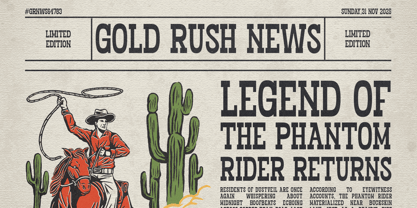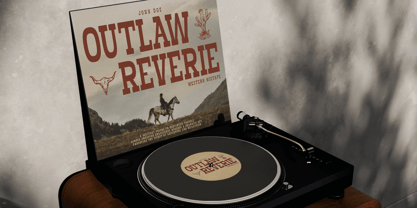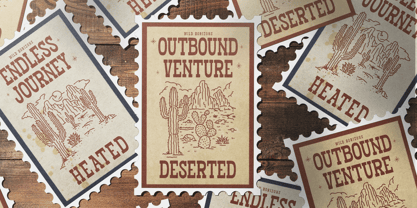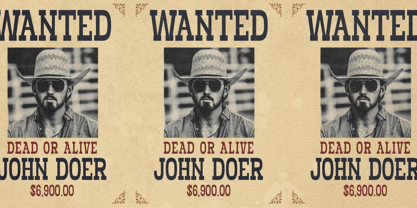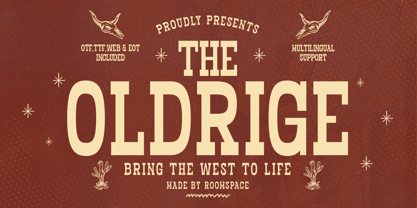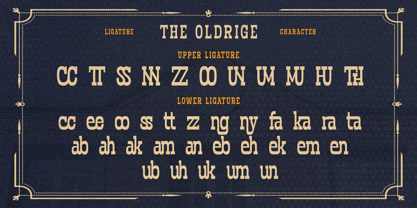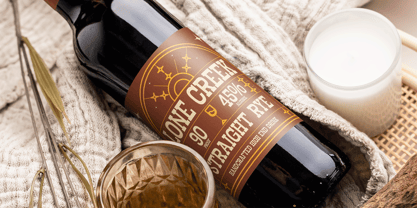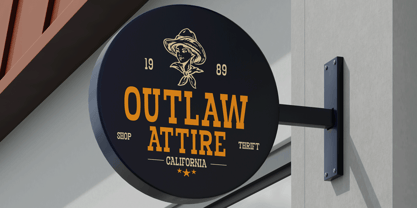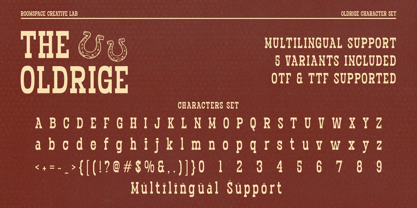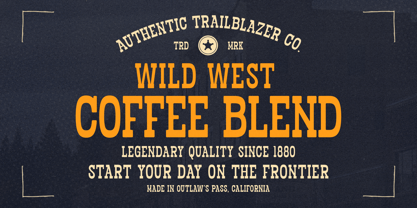
Oldrige
The Oldrige Font Family was designed by Bakhrudin Ja'far and published by Jafar07. Oldrige contains 6 styles and family package options. More about this family
Bring the West to life with rugged typography crafted for standout branding. The design features bold slab-serif lettering in a warm cream tone set against a textured reddish-brown background, capturing the rugged feel of classic frontier typography. Decorative elements such as hand-drawn stars, steer skull illustrations, and subtle grain textures enhance the authentic Old West aesthetic. The tagline “Bring the West to Life” reinforces the font’s purpose for Western branding, retro packaging, rustic posters, and heritage-inspired design projects. Overall, the visual communicates a strong frontier personality and vintage Americana charm.